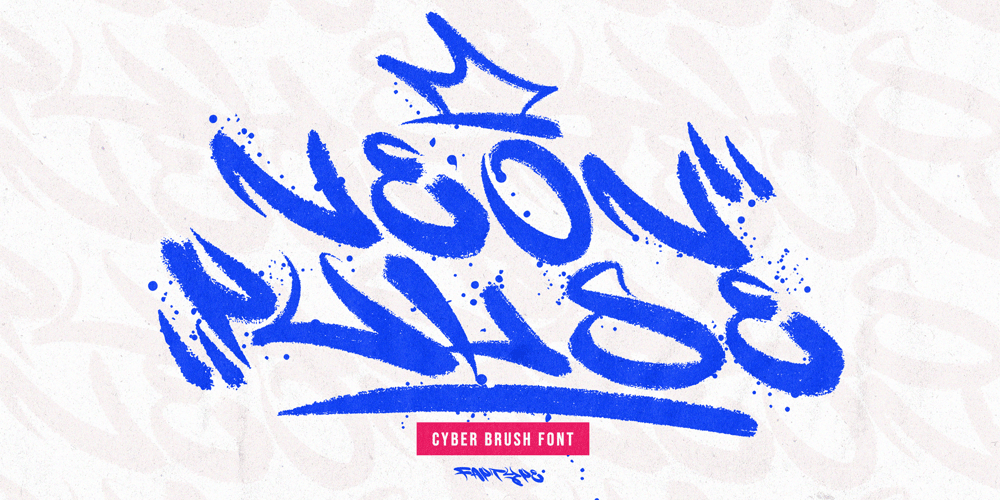
Neon Pulse Brush Font Family was designed by Ferry Ardana Putra and published by Ferry Ardana Putra. Neon Pulse Brush contains 1 styles and family package options. Introducing Neon Pulse, a cutting-edge cyber brush font designed to bring a powerful, electrifying energy to your creative projects. With its bold strokes and neon-inspired style, Neon Pulse captures the spirit of urban graffiti while seamlessly incorporating futuristic elements. This typeface is perfect for creating eye-catching logos, striking posters, dynamic social media graphics, and distinctive branding.The raw, hand-drawn look of Neon Pulse adds a sense of authenticity, while its vibrant glow evokes the excitement of city lights and modern technology. It embodies a rebellious yet refined aesthetic, making it ideal for brands and projects that seek to stand out from the crowd with confidence and originality.Elevate your designs with the unmistakable impact of Neon Pulse, and let this unique font infuse your message with energy, creativity, and a bold visual statement. Illuminate your ideas and captivate your audience with Neon Pulse—where the pulse of modern street art meets the glow of the future.Neon features: A full set of upper & lowercase characters Numbers & punctuation Multilingual language support PUA Encoded Characters +345 Glyphs +137 Graffiti Swashes OpenType Features